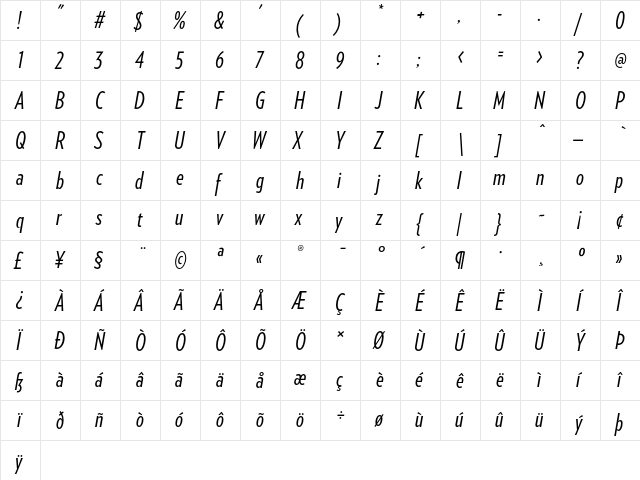
Verlag Compressed Book Italic
| Foundry | Hoefler & Frere-Jones |
| Designer | Hoefler & Frere-Jones |
Design Context for Verlag Compressed Typeface
Verlag Compressed is a composed and adaptable typeface that performs quietly and consistently across a wide range of design contexts. The dynamic lean of this cut emphasises speed and emphasis in any layout.
Pro Tip: Try Verlag Compressed for annotation and caption copy alongside an upright companion — the contrast in angle creates a dynamic but ordered typographic system.